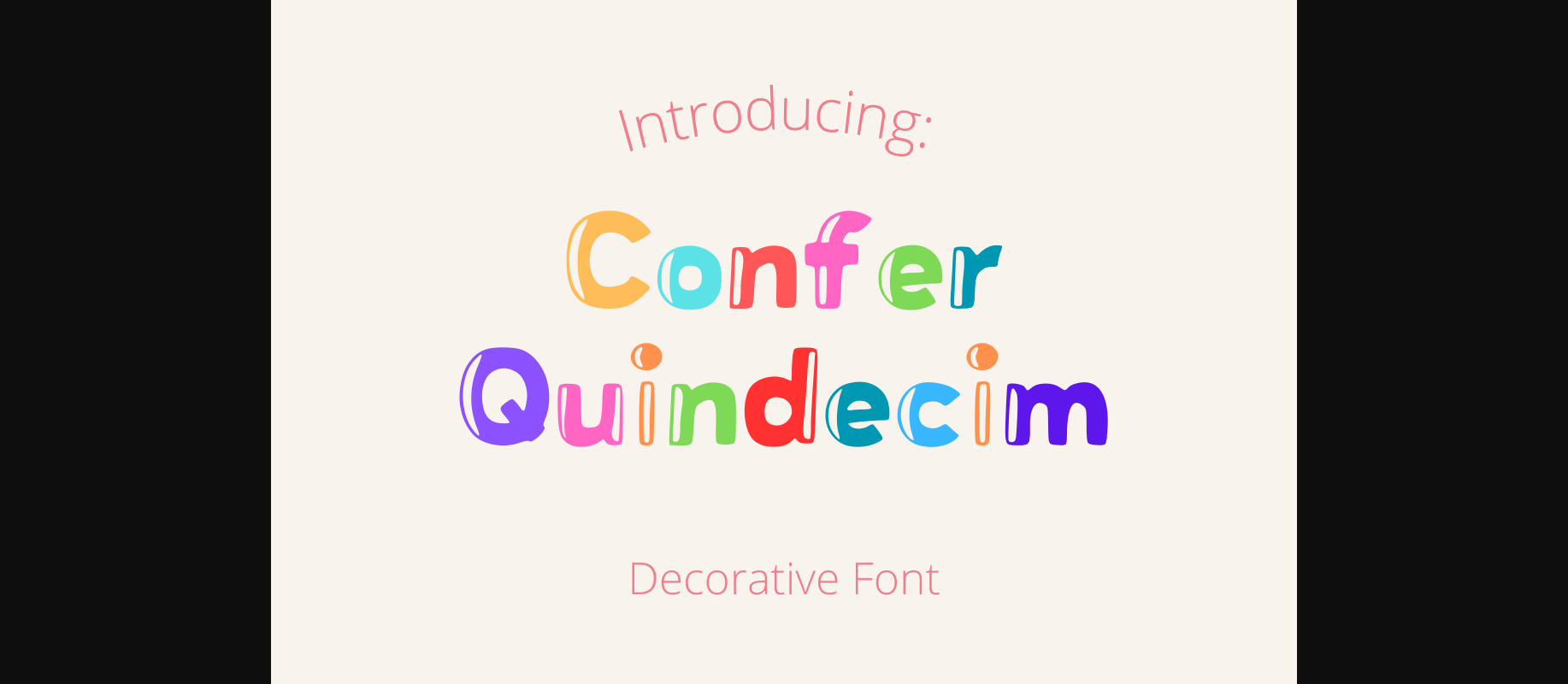
HomeDecorative FontsConfer Quindecim Font Decorative Fonts Confer Quindecim Font FacebookTwitterPinterestWhatsApp 1 of 1 ... About Confer Quindecim Font The playful and bubbly nature of this font brings joy and energy to your text, making it an ideal choice for children’s books, candy packaging, and designs that aim to create a lighthearted and fun atmosphere. DOWNLOAD NOW People also explored Ginerin Font Bunthok Font Vious Font Balloon Font Before After Font Rosemary Springs Heart Font Best in Writing Font Black Pencil Font Rishella Font 218 0 TagsConfer Quindecim Font Previous articleSunflower Monogram FontNext articleCorruptelam Duo Font LEAVE A REPLY Cancel reply Comment: Please enter your comment! Name:* Please enter your name here Email:* You have entered an incorrect email address! Please enter your email address here Website: Save my name, email, and website in this browser for the next time I comment. Personal Use Free Sweet Cake Personal Use Free Read more about this font Evelyne Personal Use Free Read more about this font Airmole Personal Use Free Read more about this font Cheese Matcha Font Personal Use Free Read more about this font BLOG Free Fonts Risk: Why Free Fonts Can Be Dangerous for Designers Free Fonts Risk: Why Free Fonts Can Be Dangerous for Designers Using free fonts is a common practice in web and graphic design. However, the... Best Fonts for YouTube Videos: Make Your Thumbnails Stand Out Elegant Wedding Invitation Fonts – Handwritten & Script Fonts Best Fonts for T-Shirt Design – Top 2025 Picks